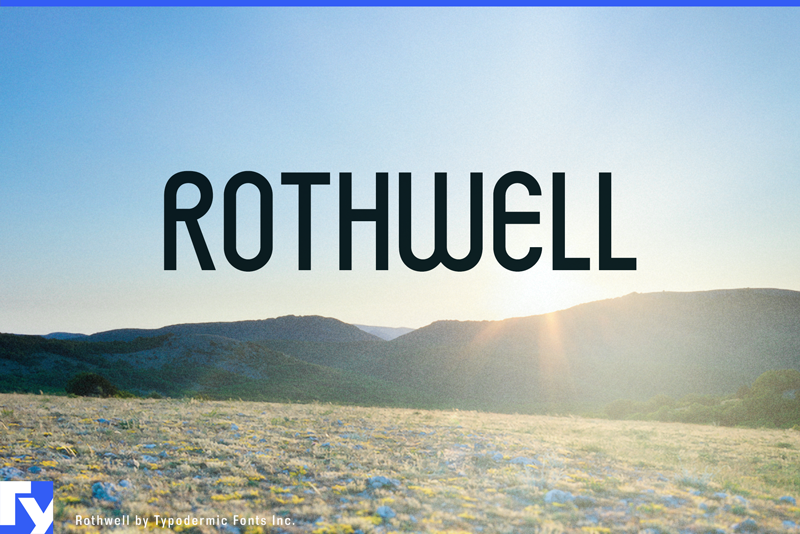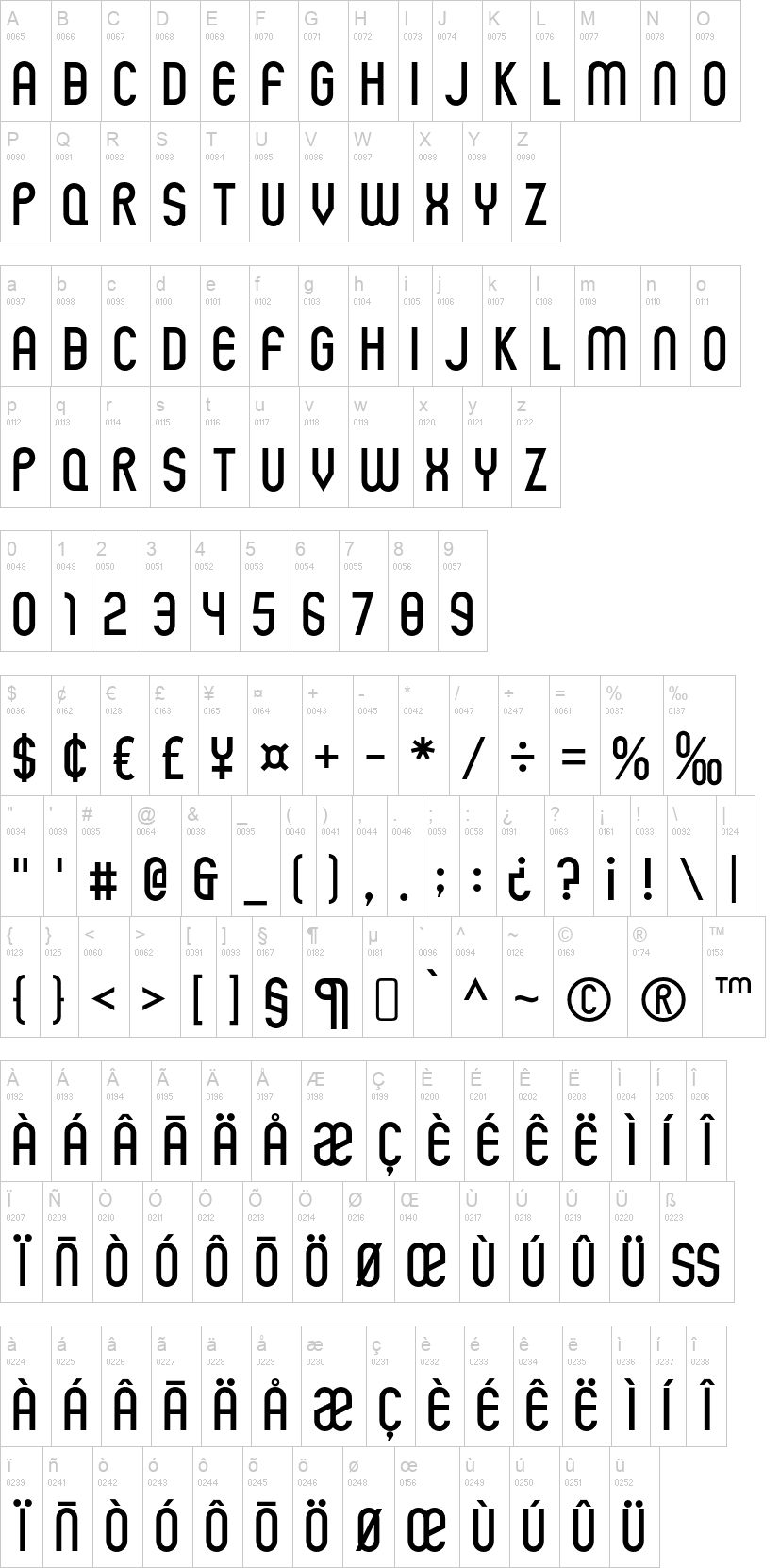
Rothwell Army.otfNote of the authorRothwell is a dramatic, astro-militaristic unicase headline typeface. Stark, modular letterforms collaborate with icy line treatment to offer your message a voice of surreality and remoteness. Rothwell is available in both Regular and Army versions. Most Latin-based European writing systems are supported, including the following languages. Afaan Oromo, Afar, Afrikaans, Albanian, Alsatian, Aromanian, Aymara, Bashkir (Latin), Basque, Belarusian (Latin), Bemba, Bikol, Bosnian, Breton, Cape Verdean, Creole, Catalan, Cebuano, Chamorro, Chavacano, Chichewa, Crimean Tatar (Latin), Croatian, Czech, Danish, Dawan, Dholuo, Dutch, English, Estonian, Faroese, Fijian, Filipino, Finnish, French, Frisian, Friulian, Gagauz (Latin), Galician, Ganda, Genoese, German, Greenlandic, Guadeloupean Creole, Haitian Creole, Hawaiian, Hiligaynon, Hungarian, Icelandic, Ilocano, Indonesian, Irish, Italian, Jamaican, Kaqchikel, Karakalpak (Latin), Kashubian, Kikongo, Kinyarwanda, Kirundi, Kurdish (Latin), Latvian, Lithuanian, Lombard, Low Saxon, Luxembourgish, Maasai, Makhuwa, Malay, Maltese, Māori, Moldovan, Montenegrin, Ndebele, Neapolitan, Norwegian, Novial, Occitan, Ossetian (Latin), Papiamento, Piedmontese, Polish, Portuguese, Quechua, Rarotongan, Romanian, Romansh, Sami, Sango, Saramaccan, Sardinian, Scottish Gaelic, Serbian (Latin), Shona, Sicilian, Silesian, Slovak, Slovenian, Somali, Sorbian, Sotho, Spanish, Swahili, Swazi, Swedish, Tagalog, Tahitian, Tetum, Tongan, Tshiluba, Tsonga, Tswana, Tumbuka, Turkish, Turkmen (Latin), Tuvaluan, Uzbek (Latin), Venetian, Vepsian, Võro, Walloon, Waray-Waray, Wayuu, Welsh, Wolof, Xhosa, Yapese, Zapotec Zulu and Zuni.